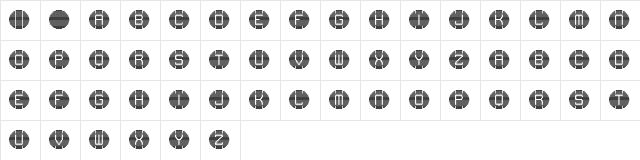
speaker grill Regular
| Designer | Wilson Thomas |
Design Context for speaker grill Typeface
speaker grill is a composed and adaptable typeface that performs quietly and consistently across a wide range of design contexts.